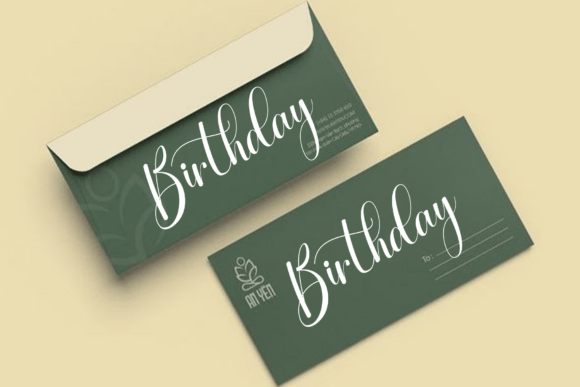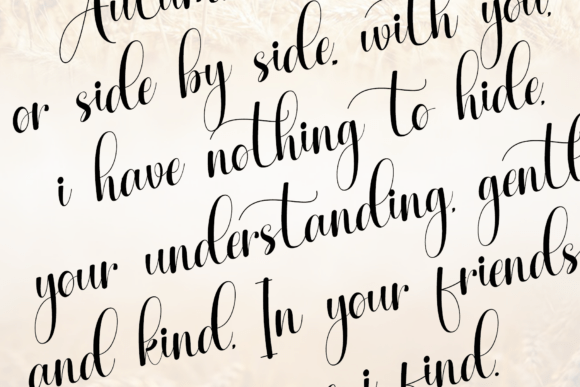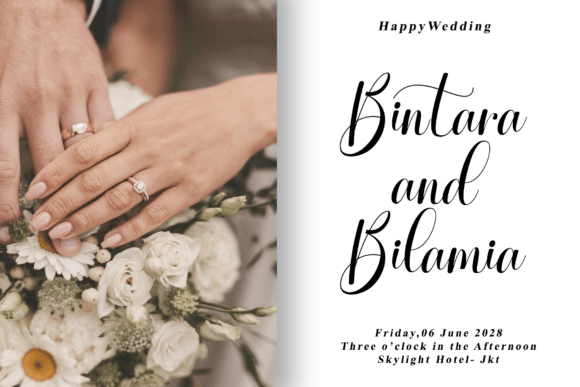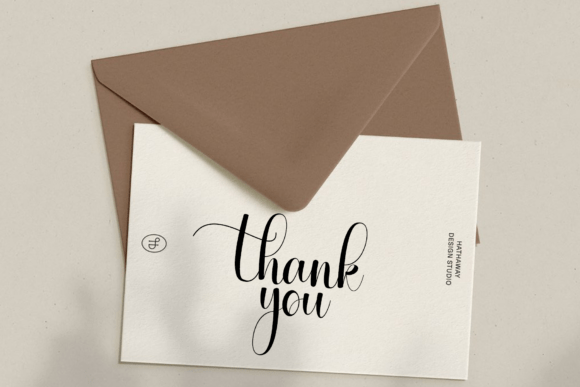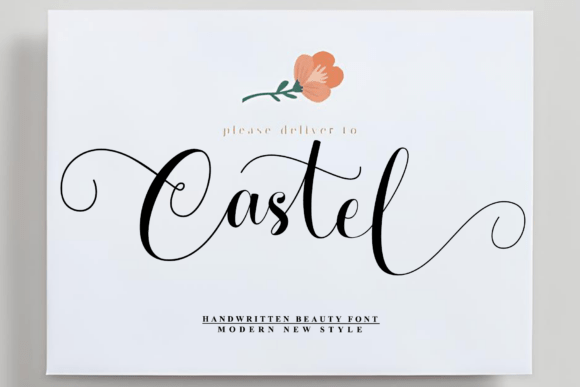
The Art of Typography: Elevating Your Design with Castel Font
Have you ever stared at a beautifully crafted menu, wine label, or magazine cover and felt a rush of inspiration? For designers, those moments of creative spark can be a game-changer. They remind us that typography has the power to transport us to a world of elegance and sophistication. And that’s exactly what the Castel Font achieves.
Castel Font is a masterfully crafted typeface that balances calligraphy and organic charm. Its unique blend of thick downstrokes and delicate hairline connectors creates a high-contrast visual rhythm that’s nothing short of captivating. With sweeping, looping ascenders that evoke a sense of artisanal artistry, this font is a premier choice for designers seeking to elevate their work in the realms of artisanal food branding, upscale lifestyle marketing, and creative editorial titles.
As a designer, the value of Castel Font lies in its ability to convey a sense of luxury, craftsmanship, and exclusivity. By incorporating this font into your design, you can instantly elevate the perception of your brand and create a lasting impression on your audience.
Key Features of Castel Font
- Font Family: Castel Font is a unique, elegant script font designed for various applications, including invitations, greeting cards, and wedding stationery.
- Unique Characteristics: Castel Font features intricate, hand-drawn letterforms with subtle flourishes and elegant curves, giving it a sophisticated and refined appearance.
Review of Castel Font
Overall, I think Castel Font is a nice addition to the world of typography. There are some great things about it.
- ✨ It has a very unique and distinctive feel that can add a touch of elegance to any design. The intricate details and ornate flourishes are particularly effective in creating a sense of luxury and sophistication.
- ✨ The font is highly customizable, with a wide range of styles and sizes available. This makes it easy to use in a variety of different contexts, from headings and titles to body text and captions.
- ✨ The font is also relatively easy to read, even in smaller sizes, which is important for designs where text is likely to be displayed in a compact format.
However, there are some limitations to consider.
- ⚠️ The font can be quite busy and overwhelming, especially when used in large blocks of text. This can make it difficult to read and may be off-putting for some users.
- ⚠️ The font may not be suitable for all types of designs, particularly those that require a more modern or minimalist aesthetic.
Overall, I think Castel Font is a solid choice for designers who are looking for a unique and elegant typography solution. While it may not be perfect for every project, it’s definitely worth considering for designs where a touch of luxury and sophistication is required.
Castel Font is a great choice for creating elegant and sophisticated designs. Use it for:
2. Luxury branding and marketing materials.
3. High-end product packaging and labeling.
Remember to experiment with different font sizes, colors, and combinations to get the most out of Castel Font.